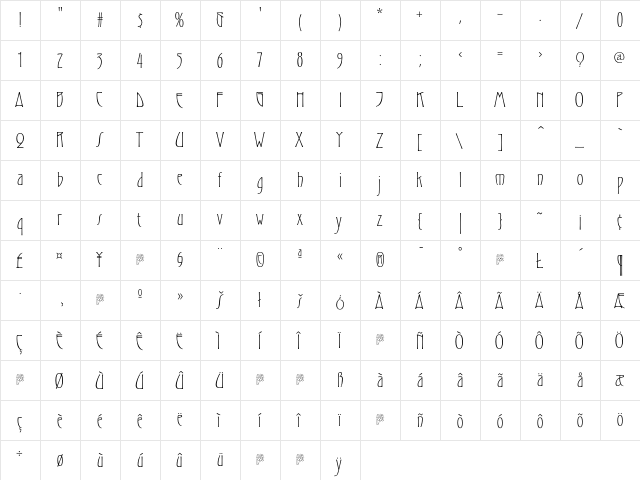
Gradl Regular
Design Context for Gradl Typeface
Gradl is a composed and adaptable typeface that performs quietly and consistently across a wide range of design contexts.